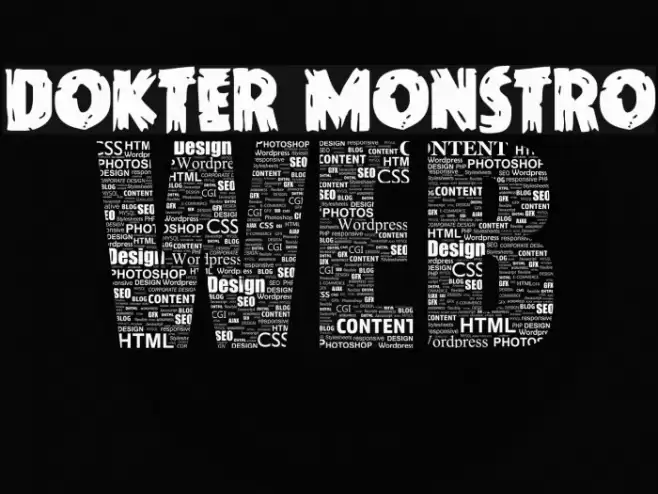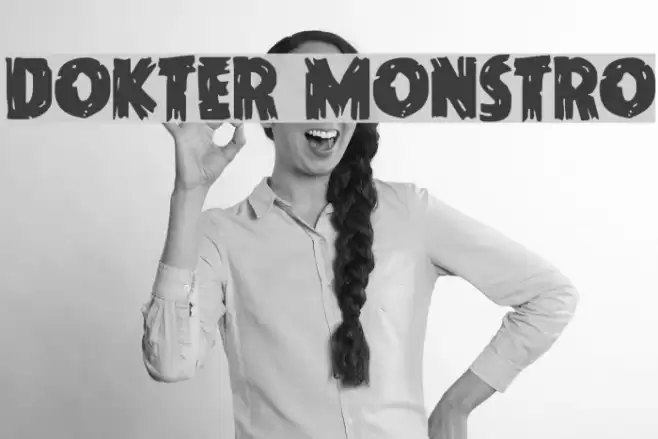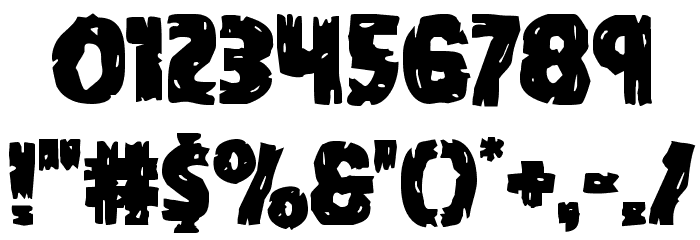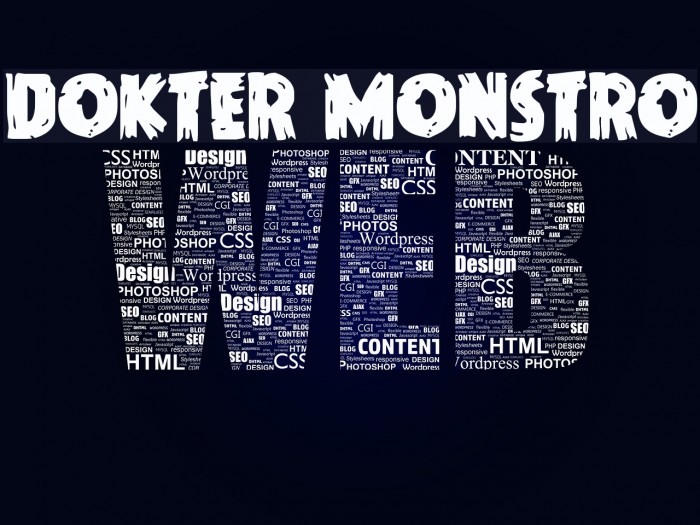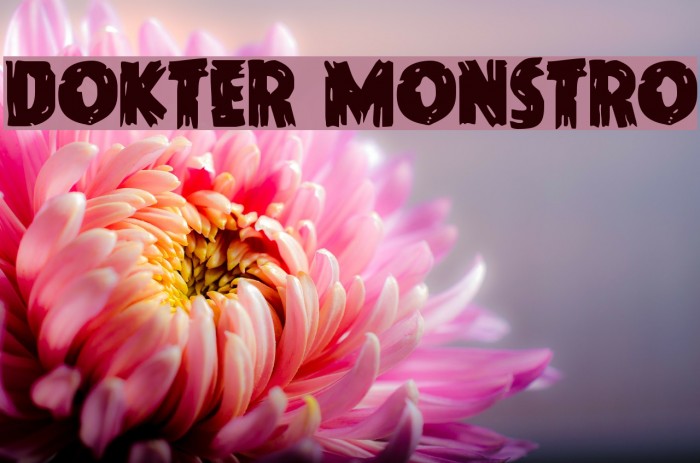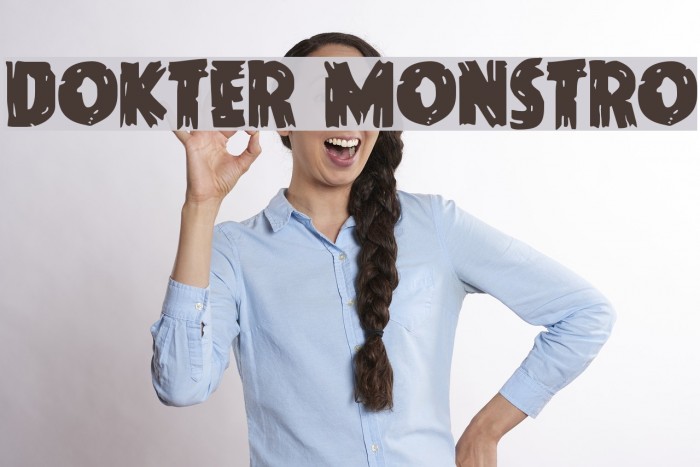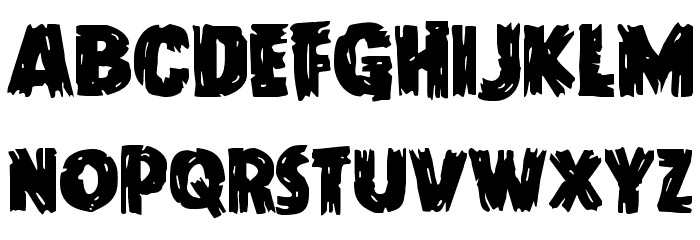
Dokter Monstro Font
Dokter Monstro Description
This font features a bold, jagged style with a distinctly rough and edgy appearance. The characters are heavily stylized, with irregular edges and a distressed look, giving them a dynamic and energetic feel. The uppercase and lowercase letters maintain a consistent theme, with exaggerated angles and a sense of movement. Numbers and special characters follow the same design principles, ensuring a cohesive appearance across all glyphs. The font's unique aesthetic makes it stand out, ideal for projects that require a strong visual impact.
A bold, jagged, and distressed font with a dynamic and edgy style from Uncategorized fonts.
- Proposed Projects: Perfect for horror-themed designs, edgy posters, album covers, and any project needing a bold statement.